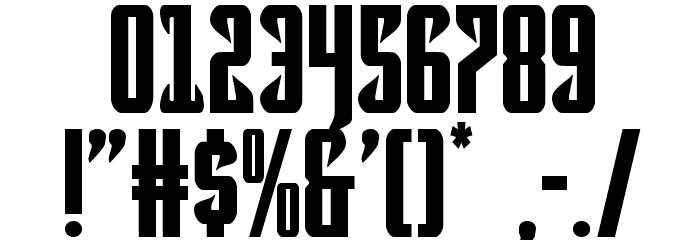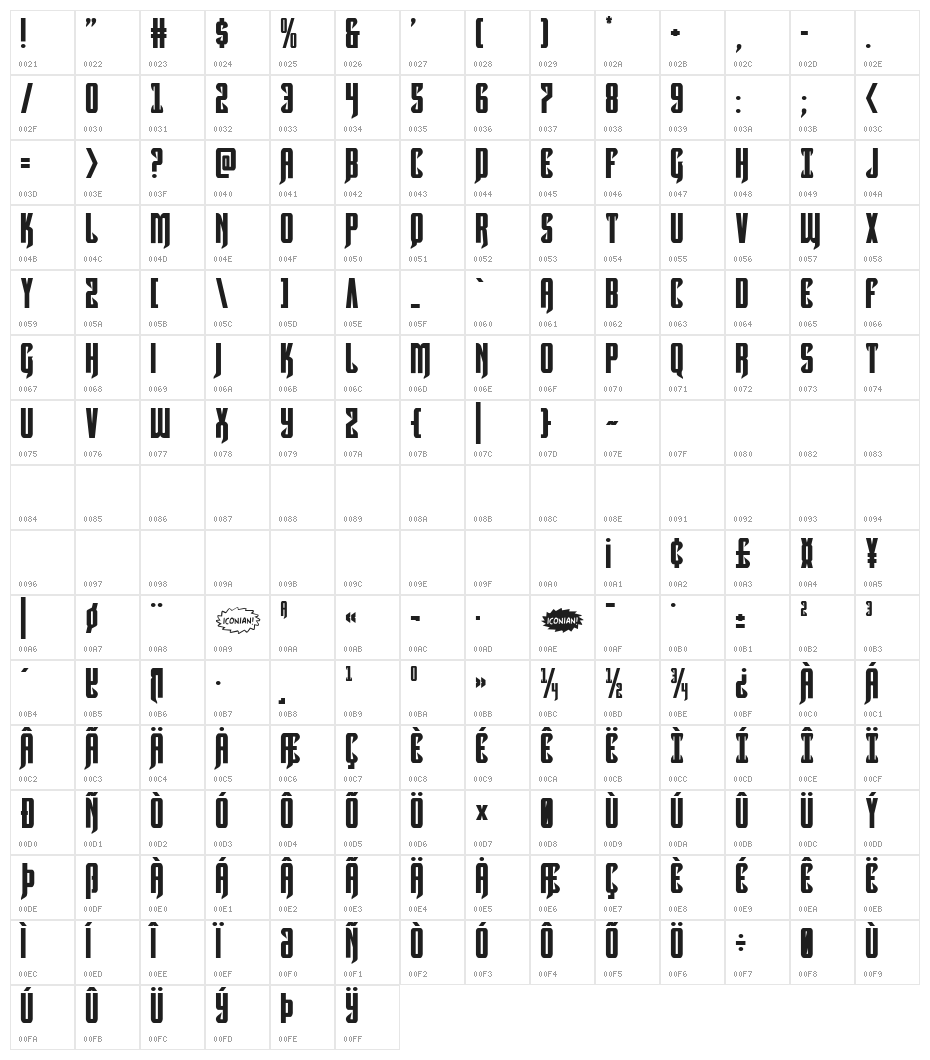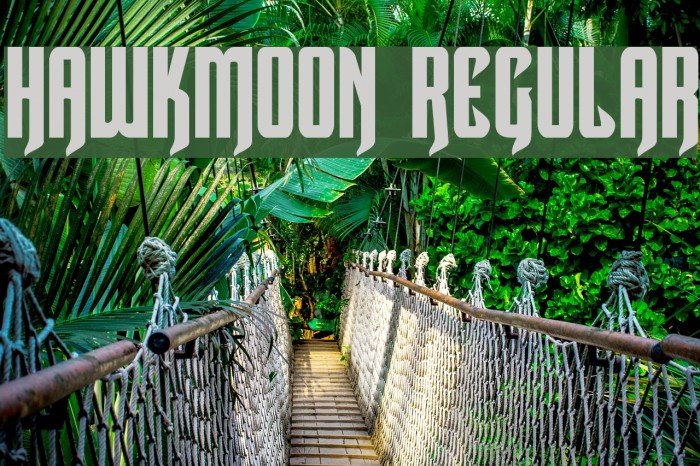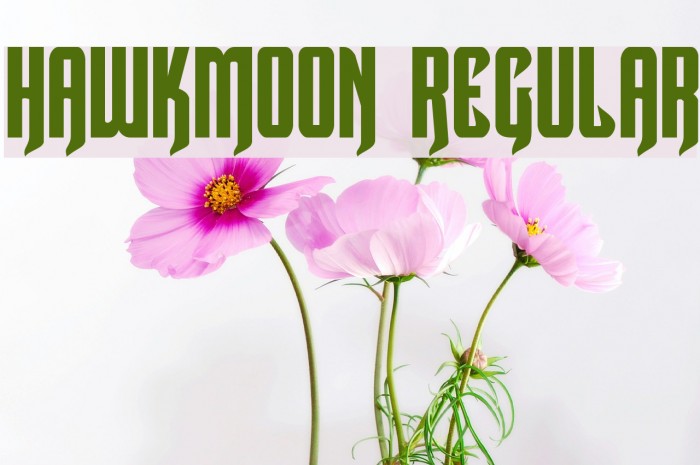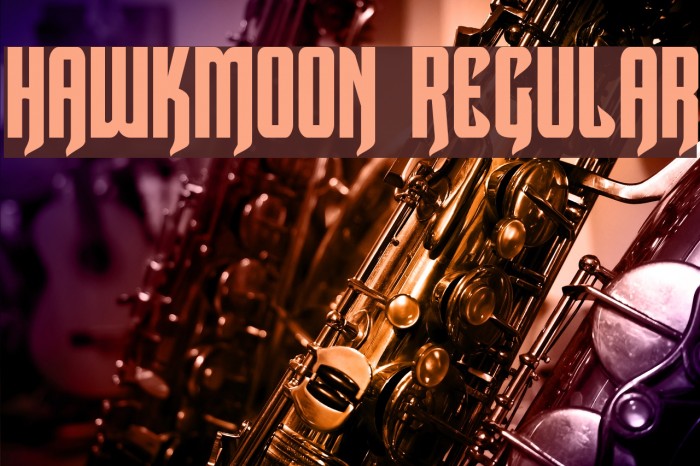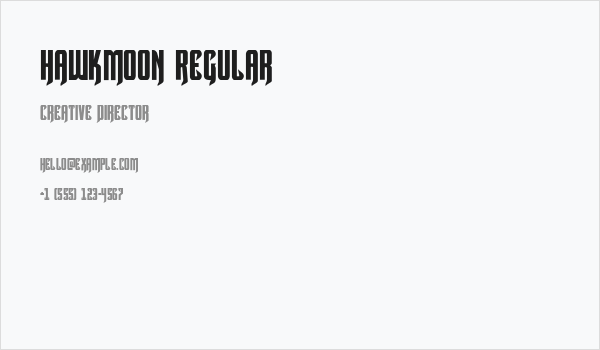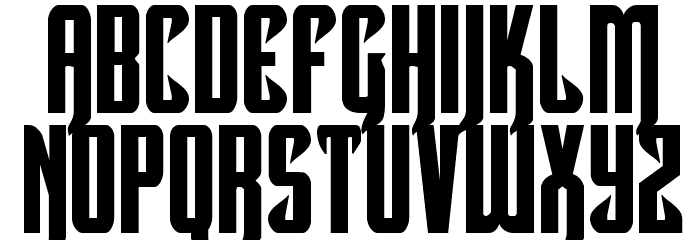
Hawkmoon Regular Font
Hawkmoon Regular Description
This font features a bold and striking design with a strong presence. The characters are tall and narrow, with sharp angles and a geometric style that gives it a modern and edgy look. The uppercase letters are particularly prominent, with a uniform height that creates a cohesive appearance. The lowercase letters maintain the same boldness, ensuring readability while adding a unique flair. The numbers and special characters are consistent with the overall design, making it versatile for various uses. The font's distinct style makes it ideal for attention-grabbing headlines and impactful logos.